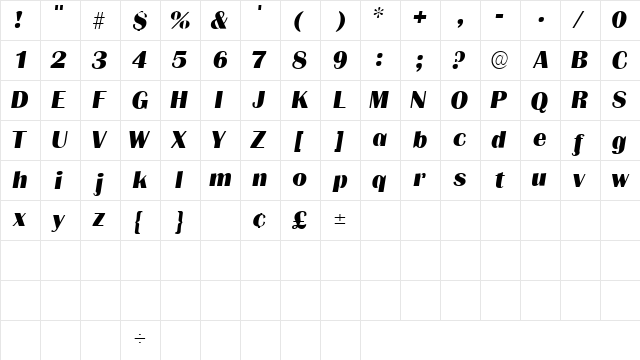
BurinSSK Italic
Design Context for BurinSSK Typeface
BurinSSK takes a measured approach to typography — its balanced proportions and neutral character make it a reliable workhorse for both digital and print work. Its italic angle brings a sense of urgency and motion to the letterforms.
Pro Tip: Try BurinSSK for annotation and caption copy alongside an upright companion — the contrast in angle creates a dynamic but ordered typographic system.